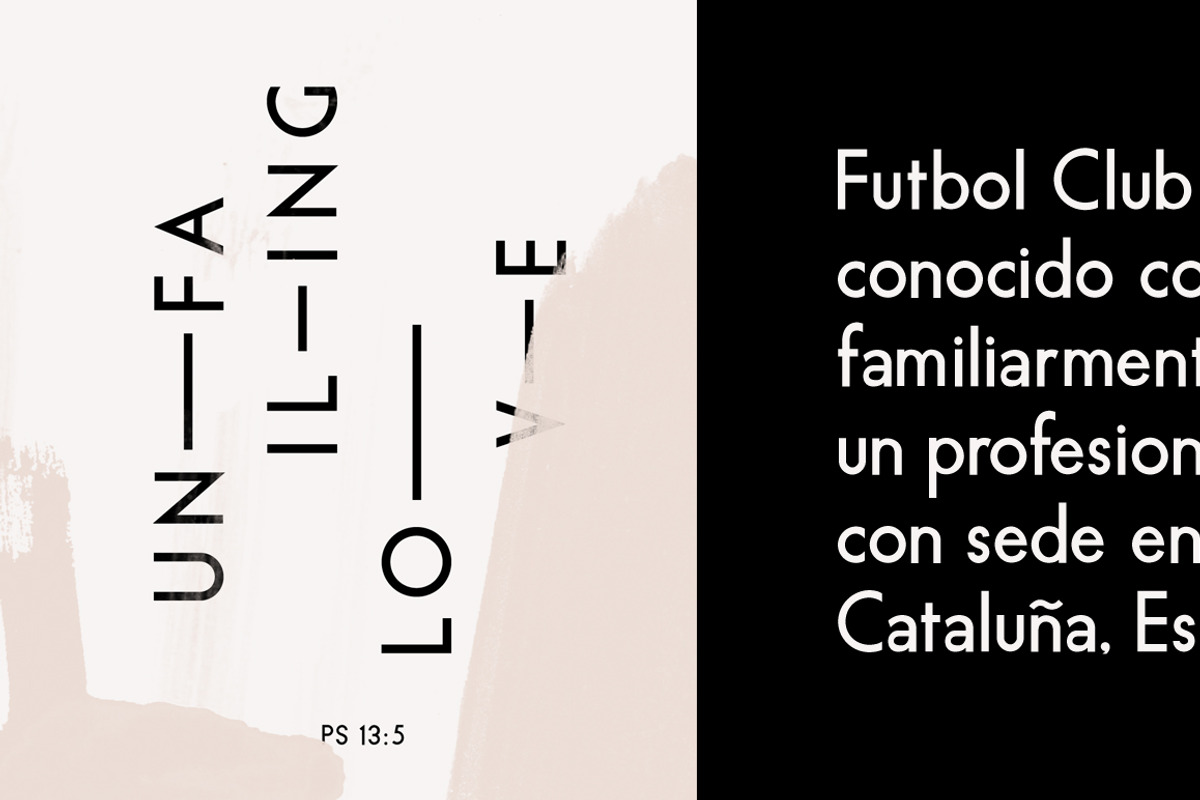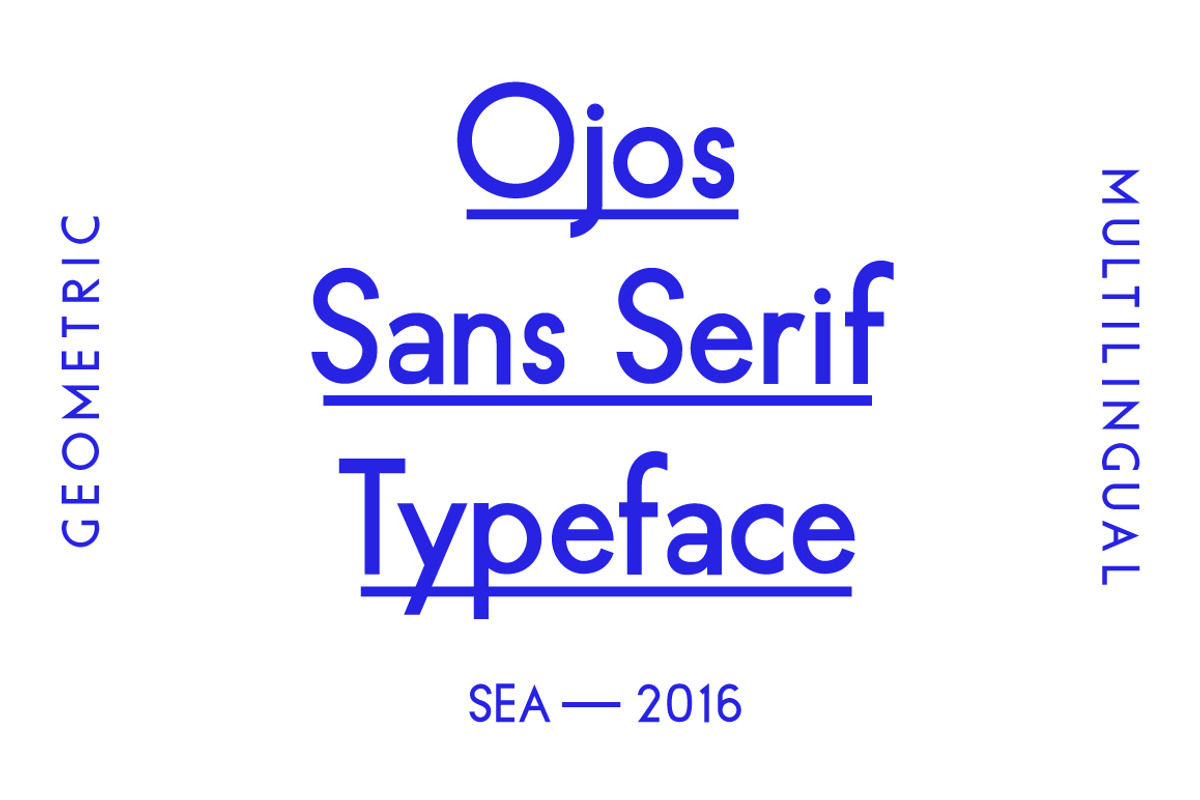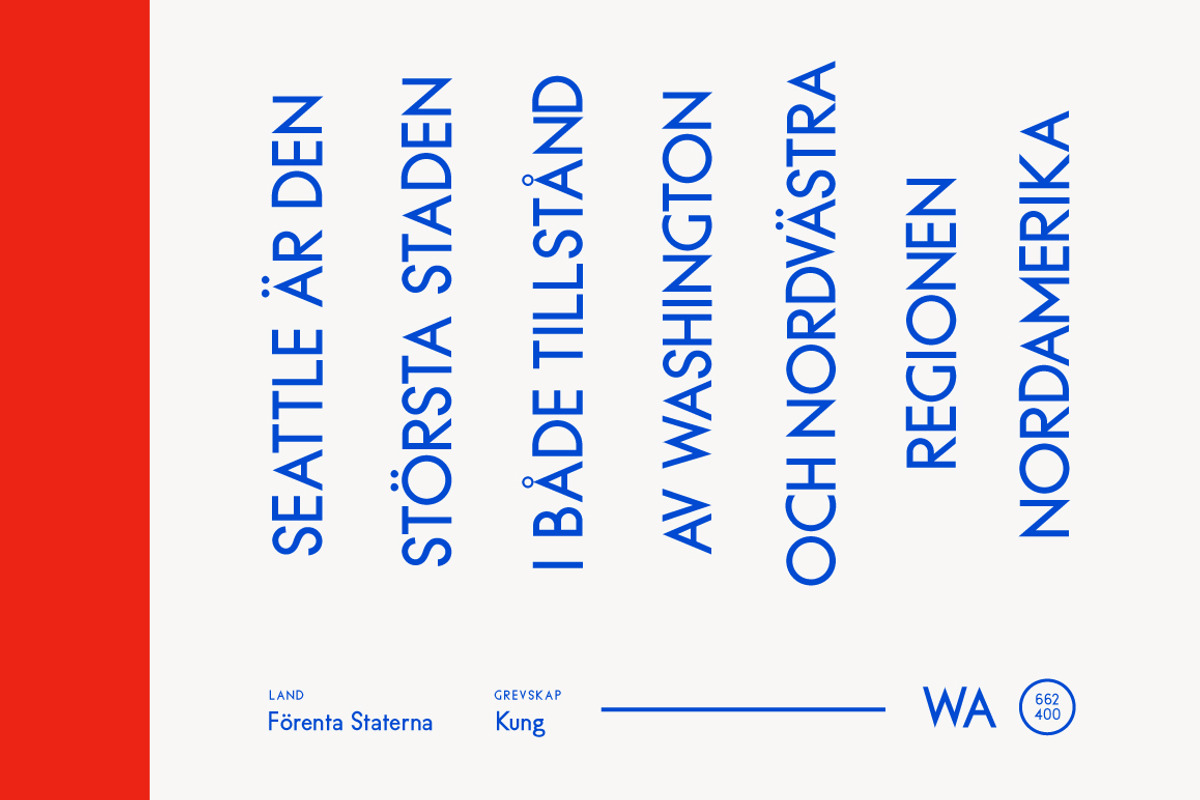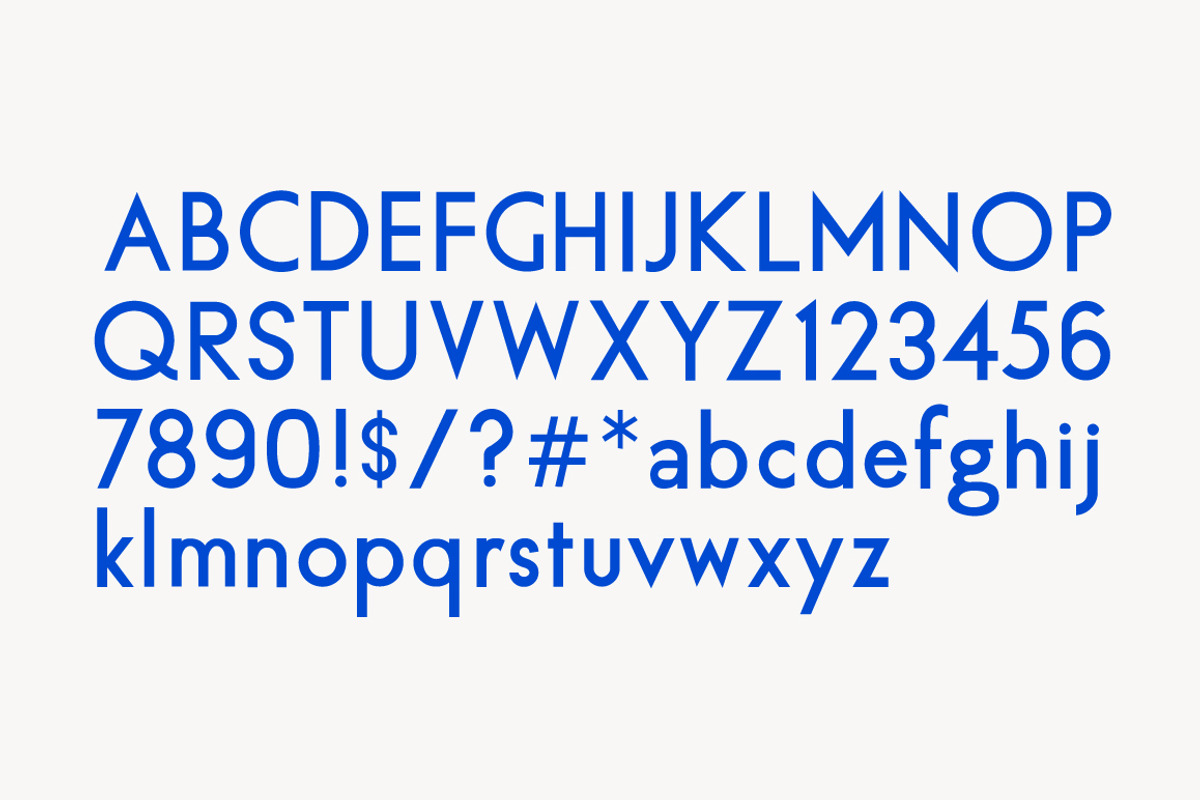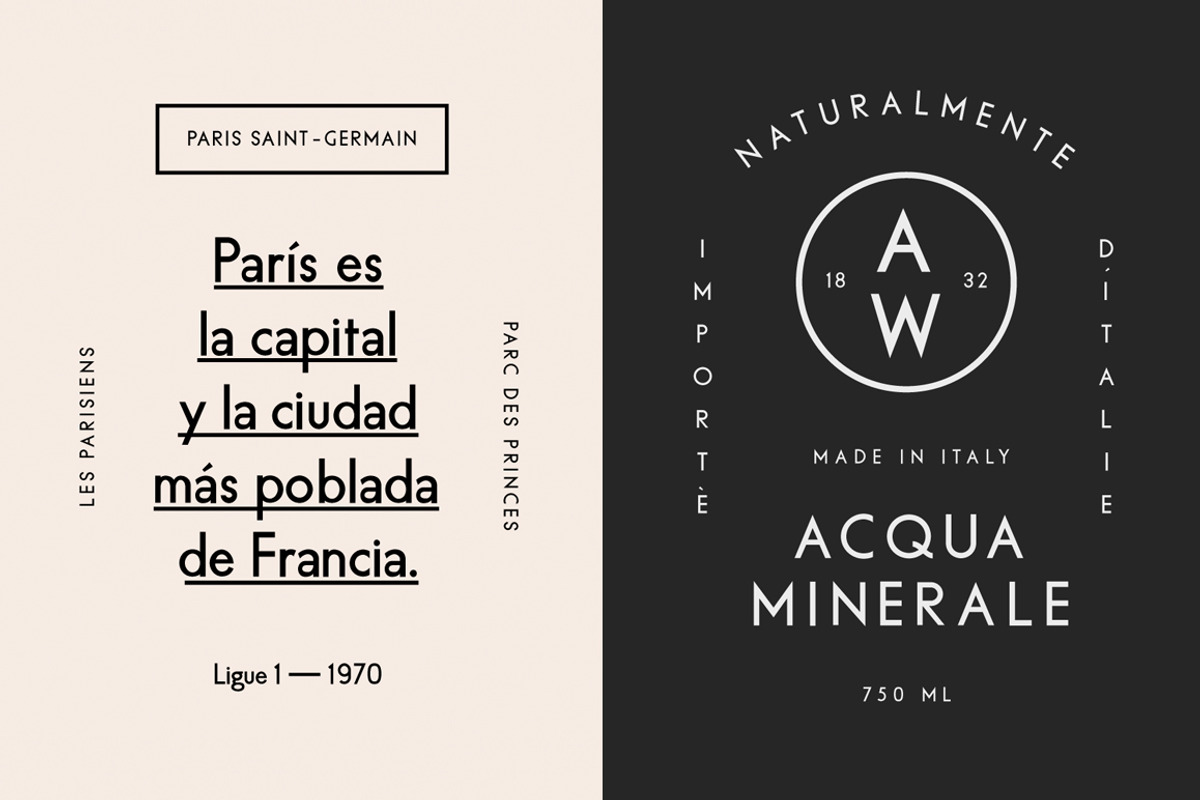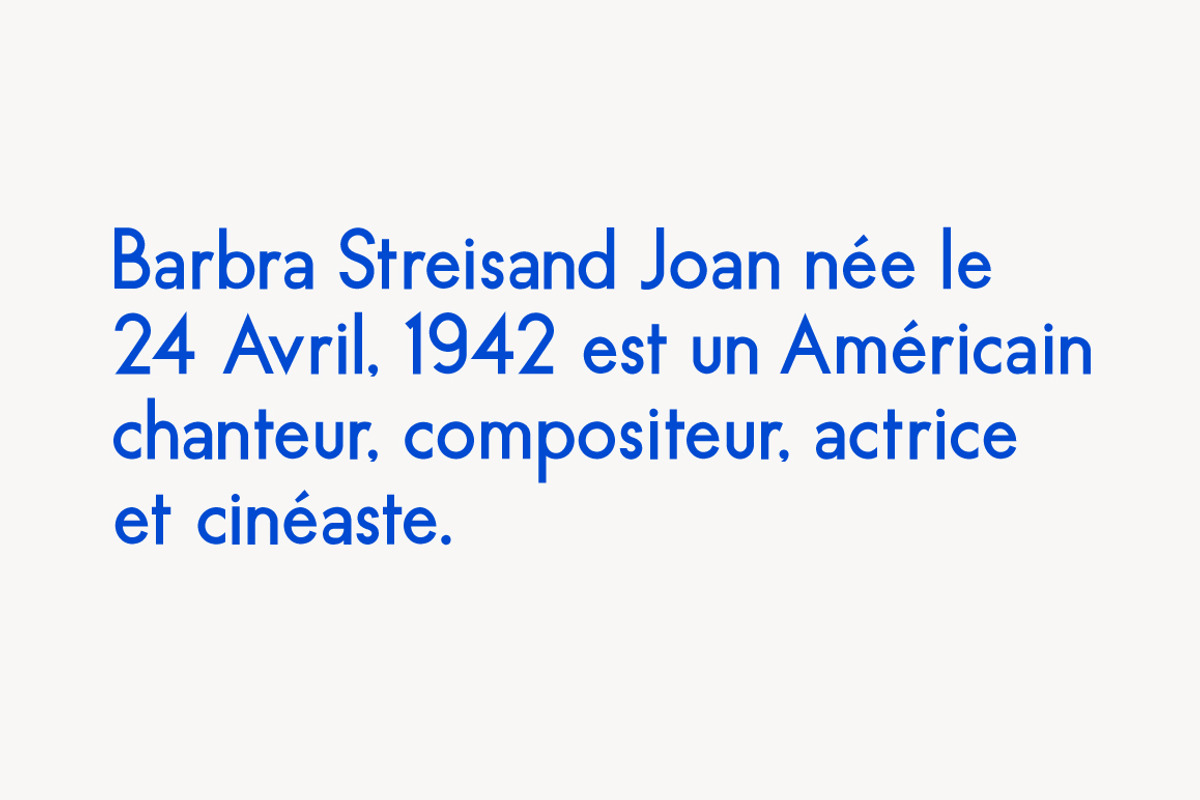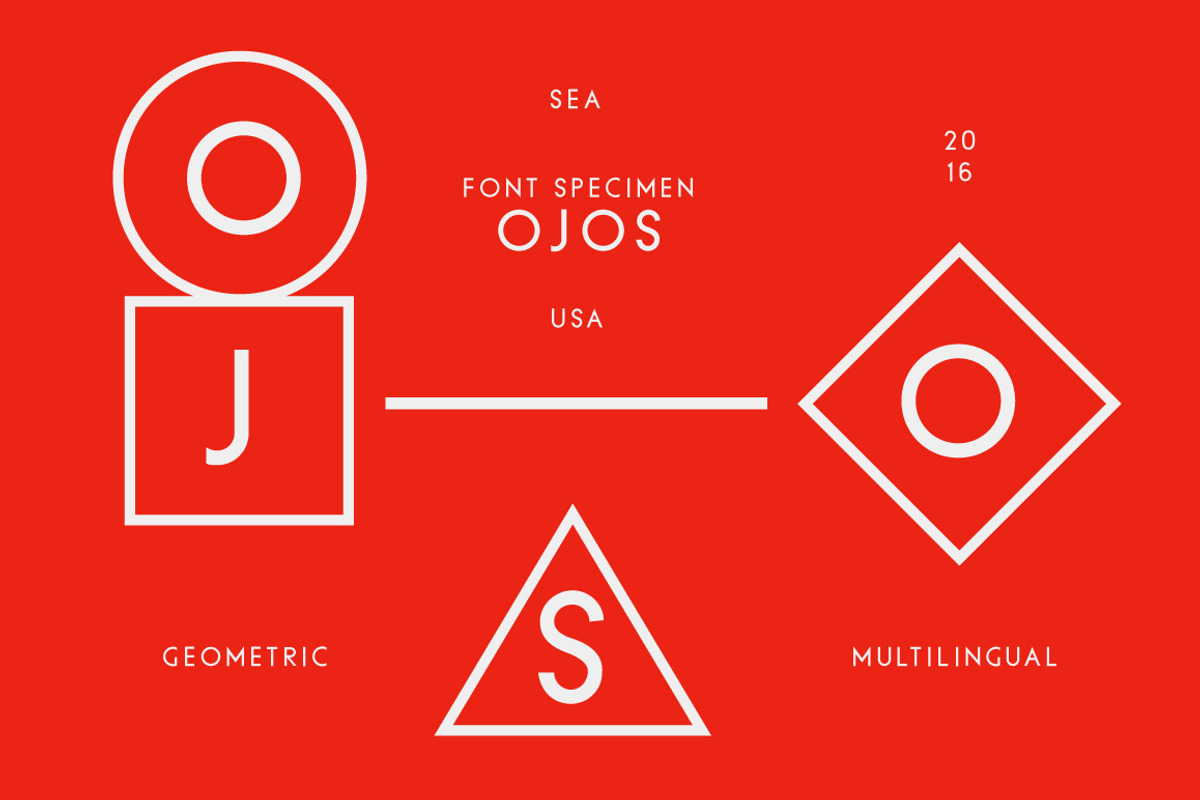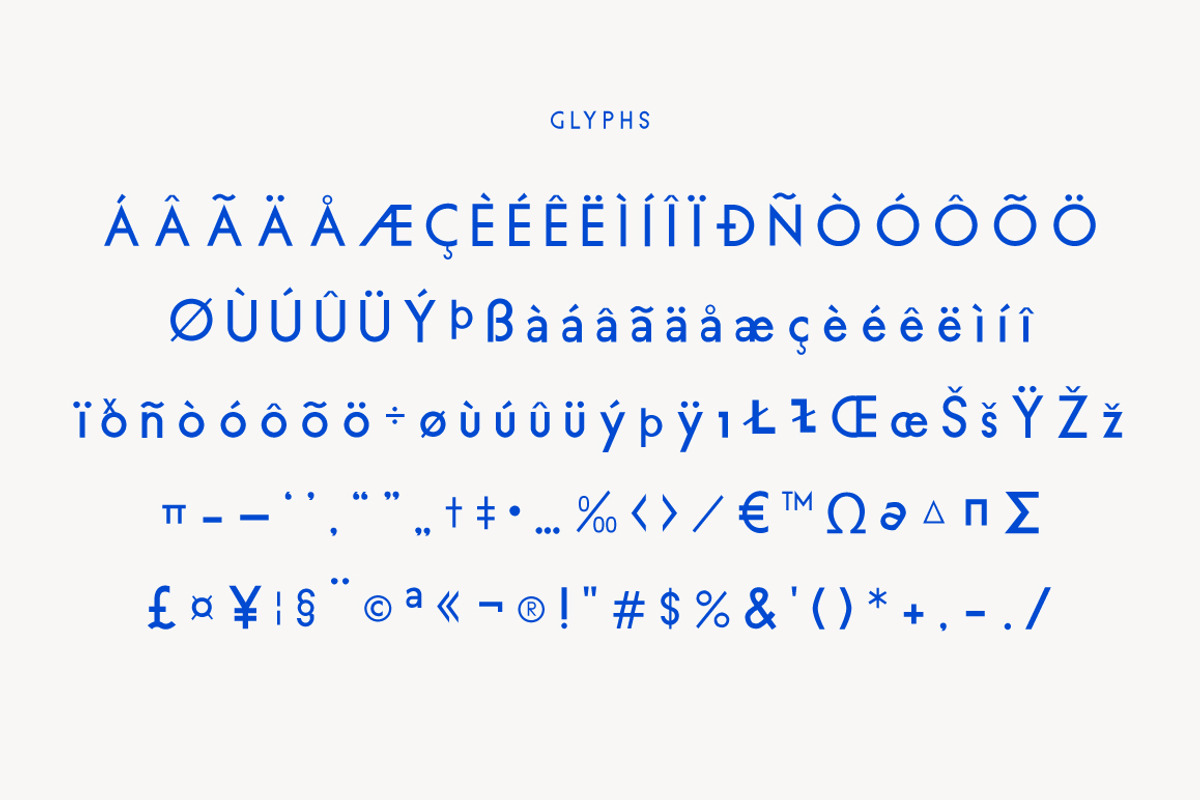
Ojos Sans Serif Font
Ojos Sans Serif Font by Ballasiotes is a font selected for branding, posters, packaging, typography.
- Complete with multilingual support and extensive glyph composition.
Ojos Sans Serif Font by Ballasiotes fits naturally into Branding, posters, packaging, typography.